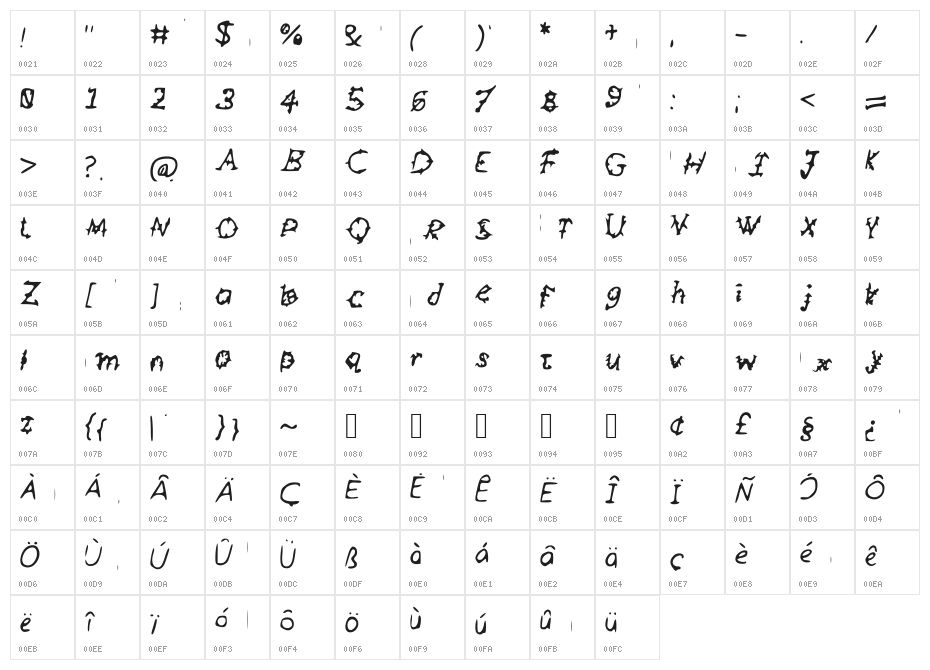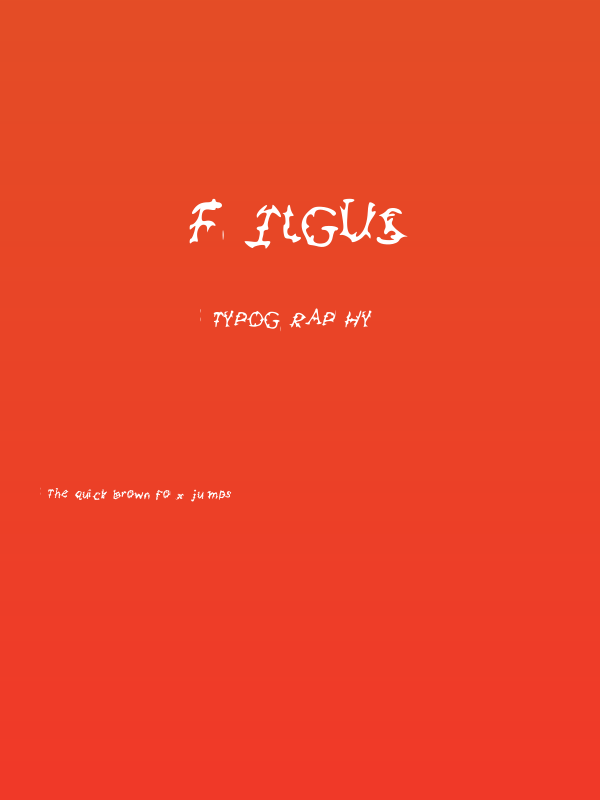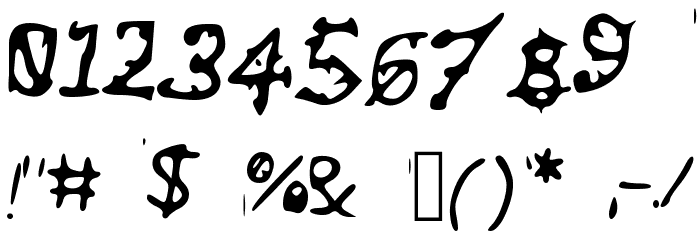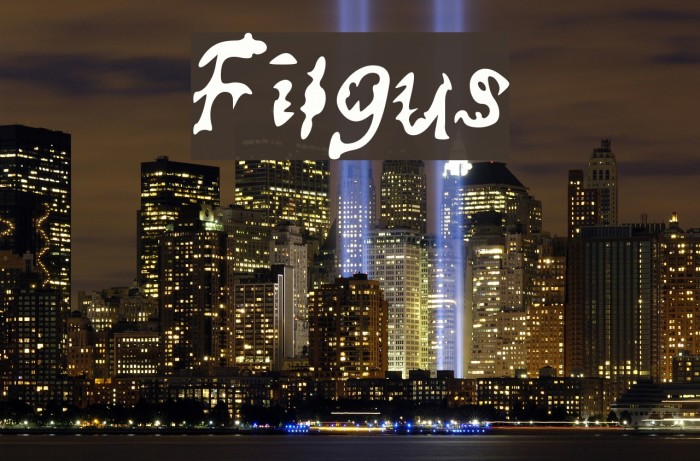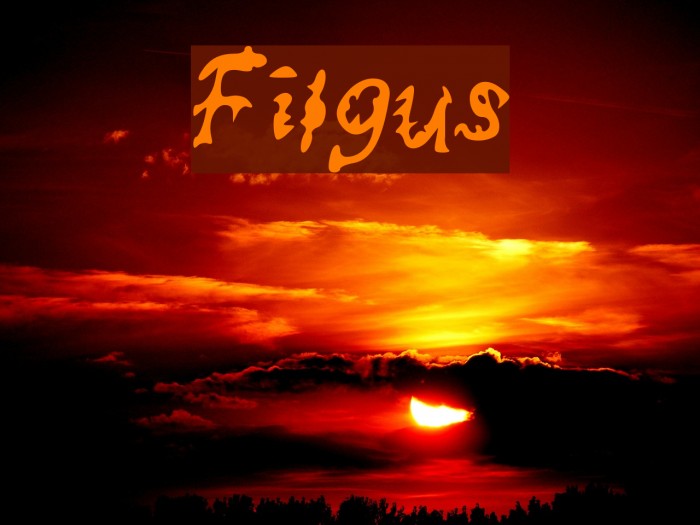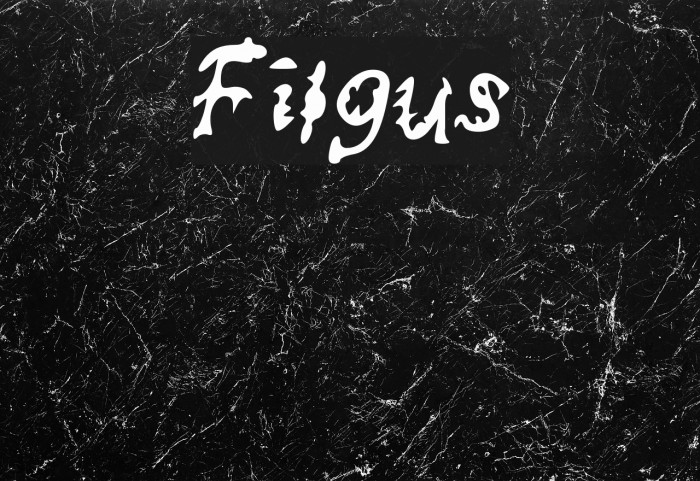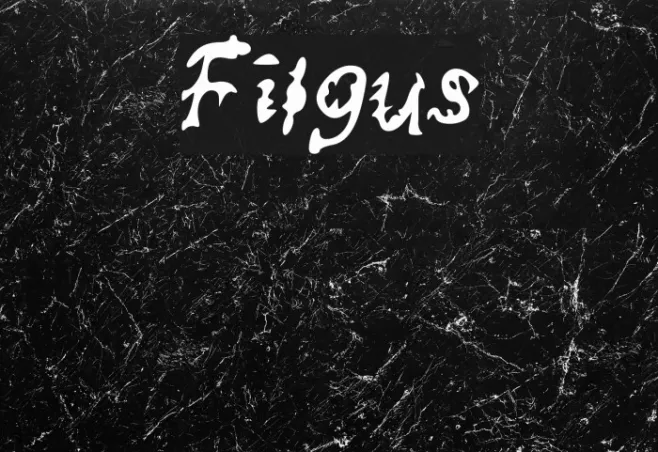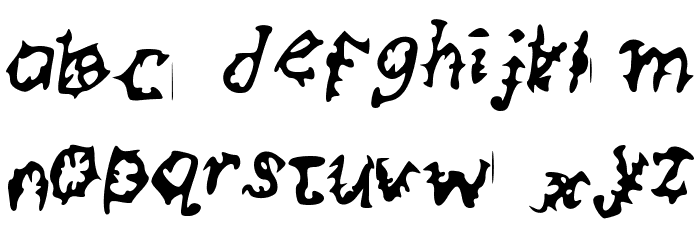
Filgus Font
Filgus Description
This font exhibits a highly decorative and artistic style, characterized by its unique, jagged edges and irregular shapes. The letters appear as if they are crafted from torn paper or have a distressed, organic texture. Each character maintains a consistent theme of roughness and unpredictability, giving the font a dynamic and edgy appearance. The uppercase and lowercase letters share similar stylistic elements, with the lowercase being slightly more compact. Numbers and special characters follow the same design principles, ensuring uniformity across all glyphs. This font is particularly eye-catching and would stand out in any design project that requires a bold and unconventional look.